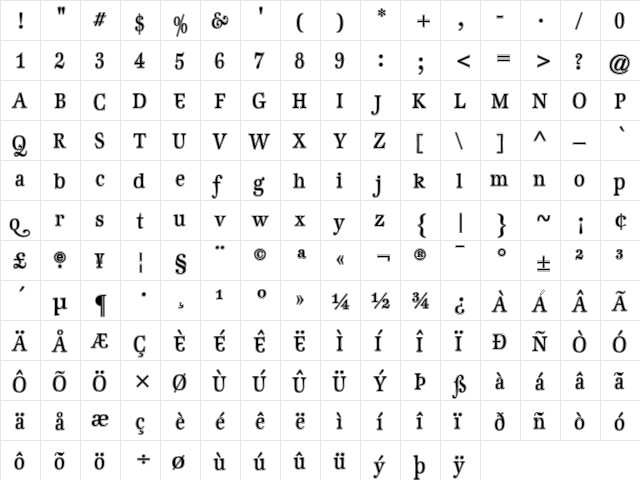
GeistInline Regular
Design Context for GeistInline Typeface
GeistInline brings ornamental detail and strong personality to headlines and identities, where visual impact matters more than quiet functionality.
Font Pairing: Pair with a clean neutral sans-serif for body copy to let GeistInline's character lead without overwhelming the composition.
Pro Tip: Treat GeistInline as the centrepiece of your typographic hierarchy. One strong heading set in a decorative face can carry an entire layout.